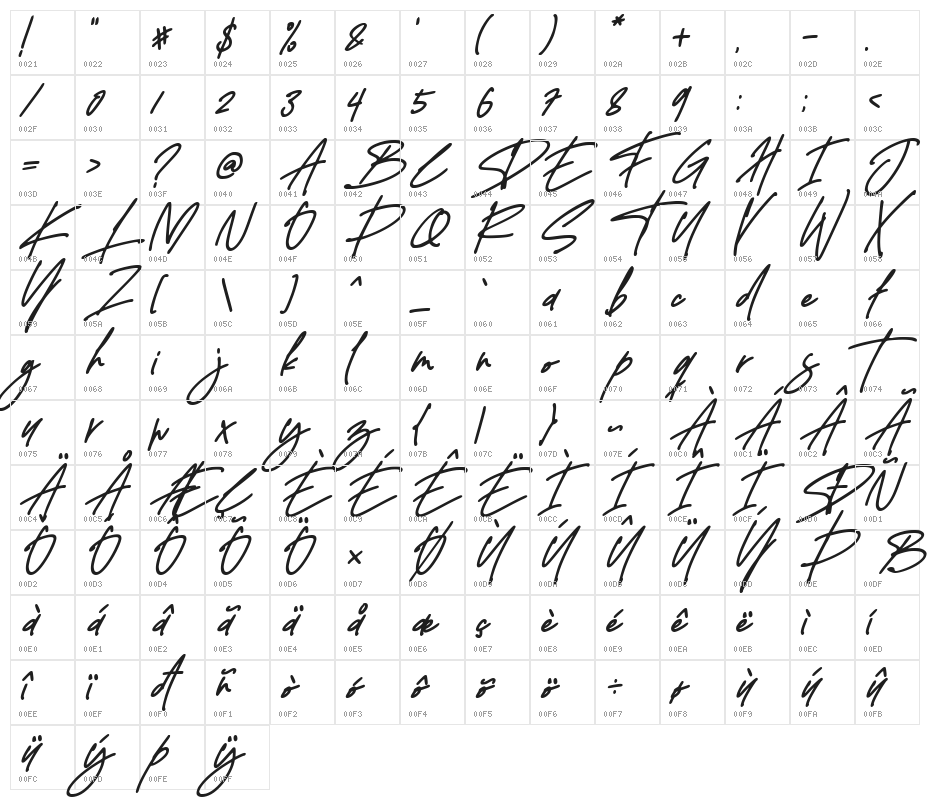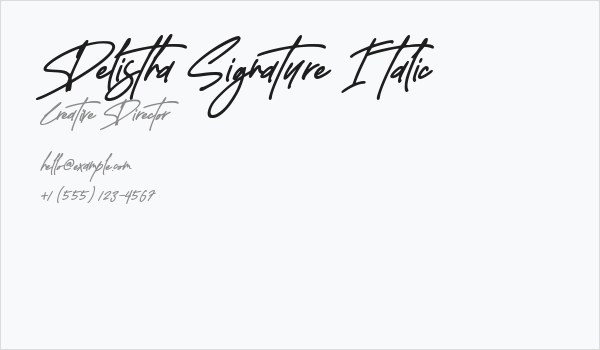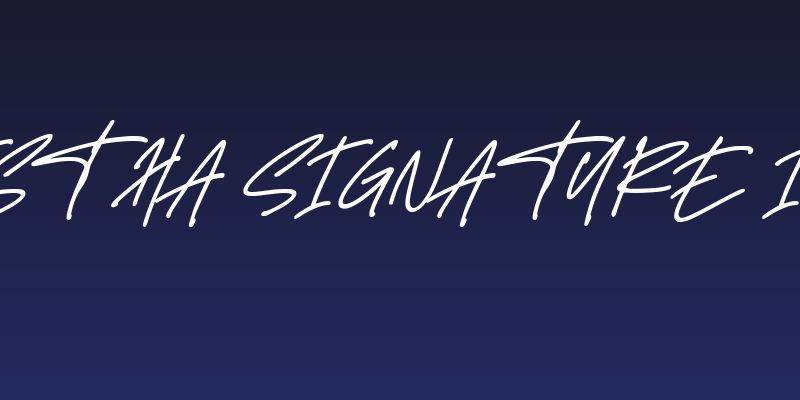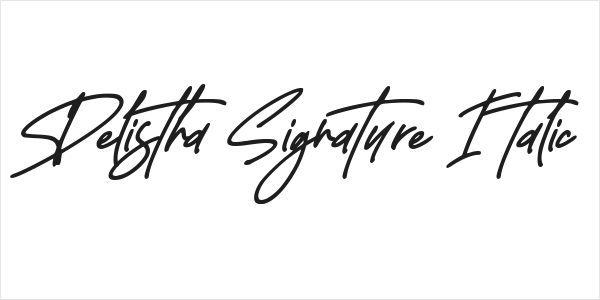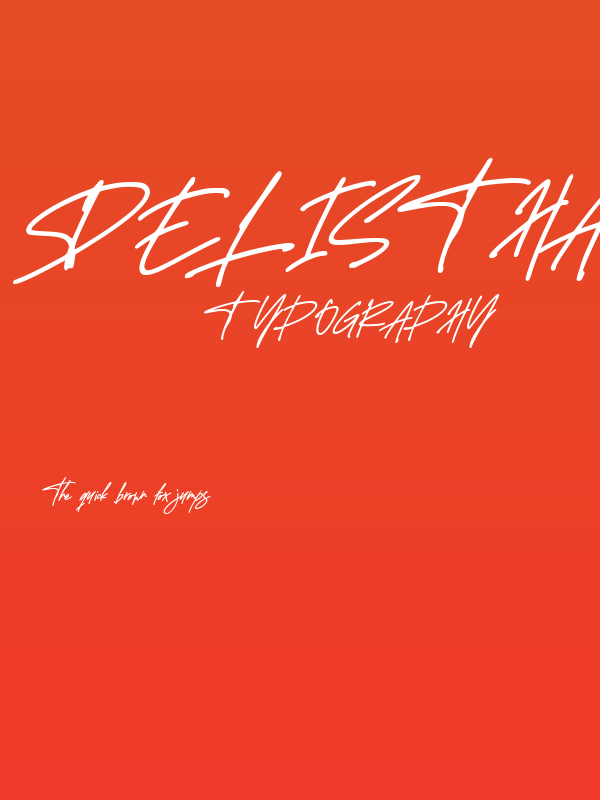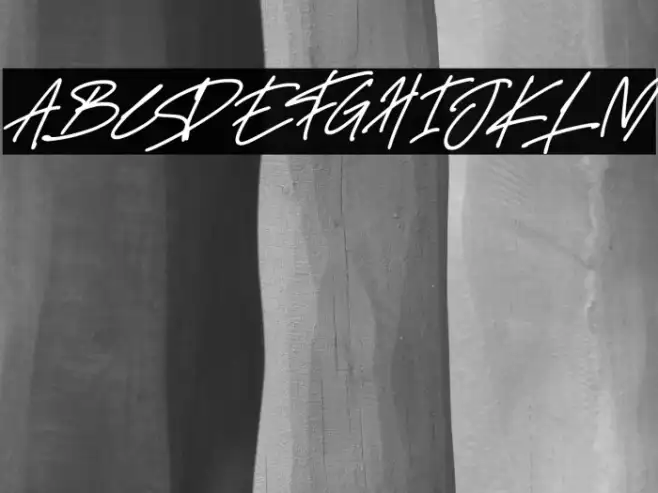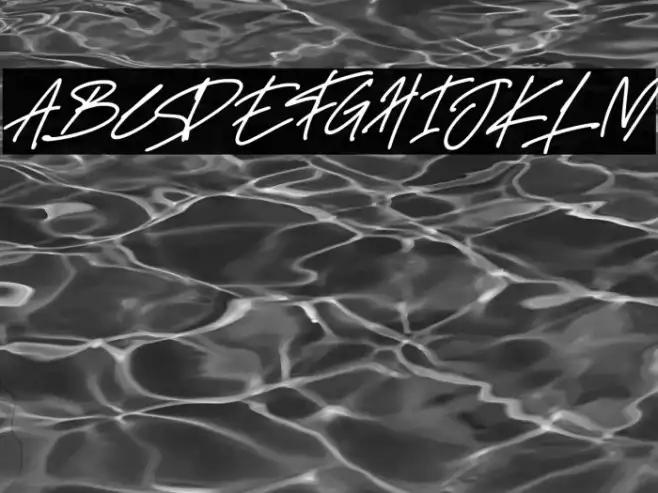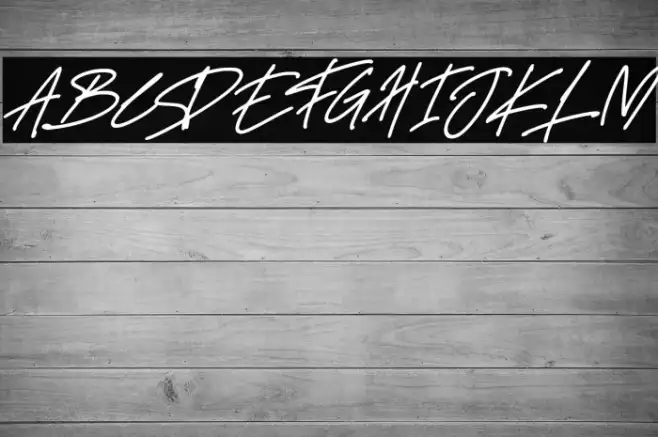
Delistha Signature Italic Font
Delistha Signature Italic Description
This font exudes a dynamic and fluid style, characterized by its cursive and handwritten appearance. The letters are connected in a flowing manner, giving it a personal and artistic touch. The uppercase letters maintain a consistent height, while the lowercase letters exhibit a playful variation in size and slant. Numbers and special characters follow the same fluid design, ensuring a cohesive look across all elements. The strokes are smooth and slightly varied in thickness, adding to the handwritten feel. This font is ideal for projects that require a personal, elegant, and artistic touch.